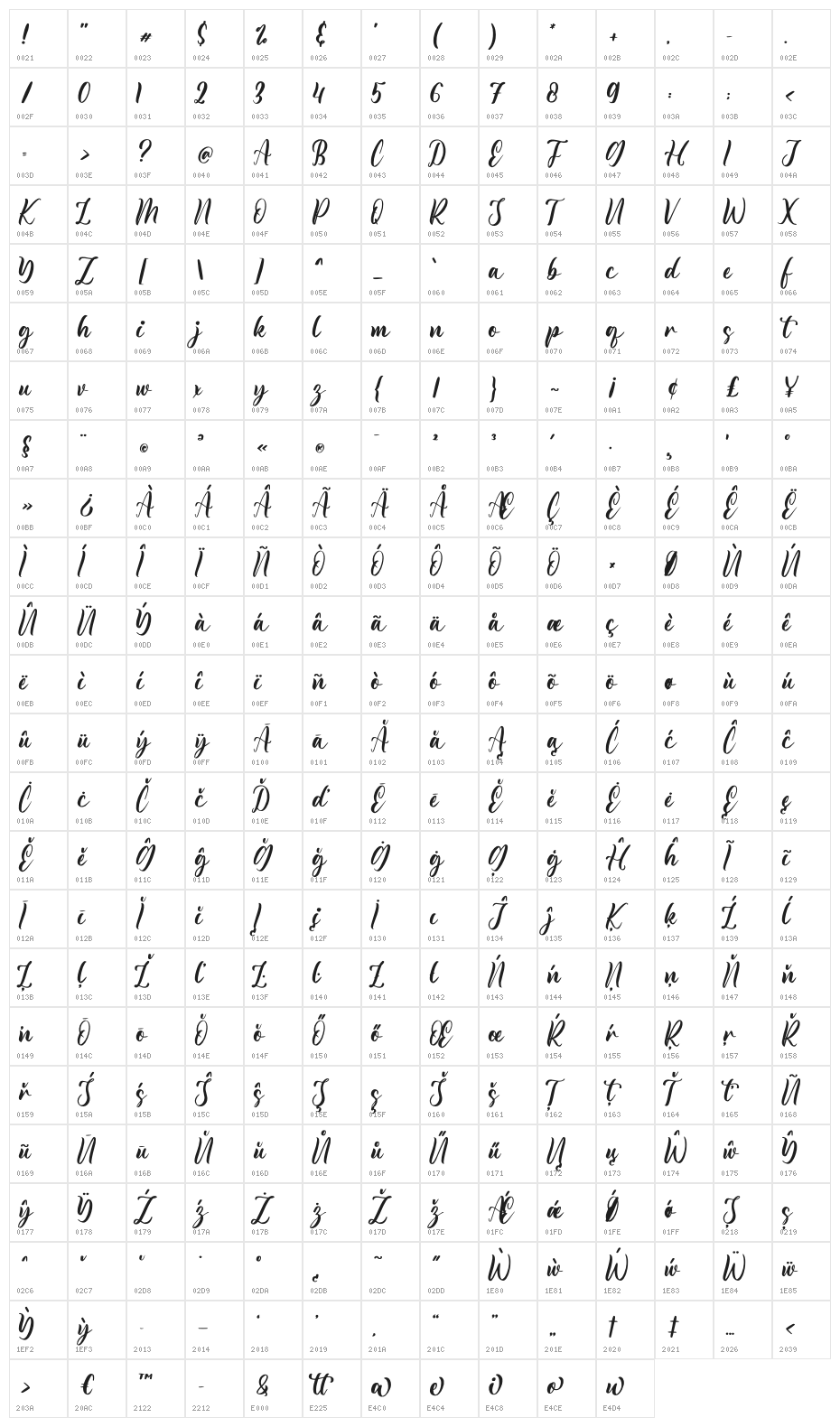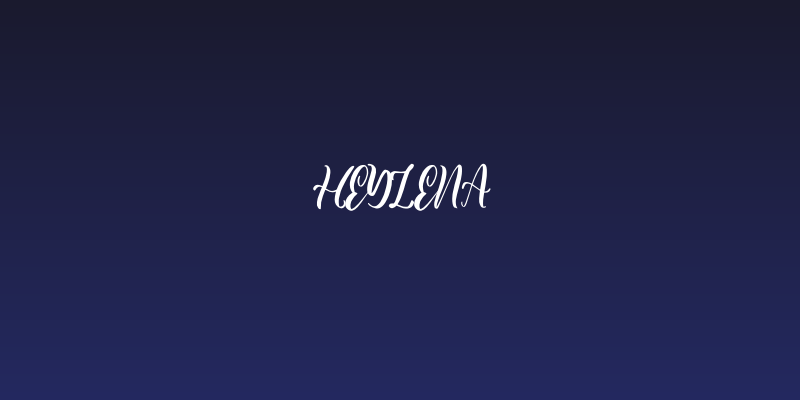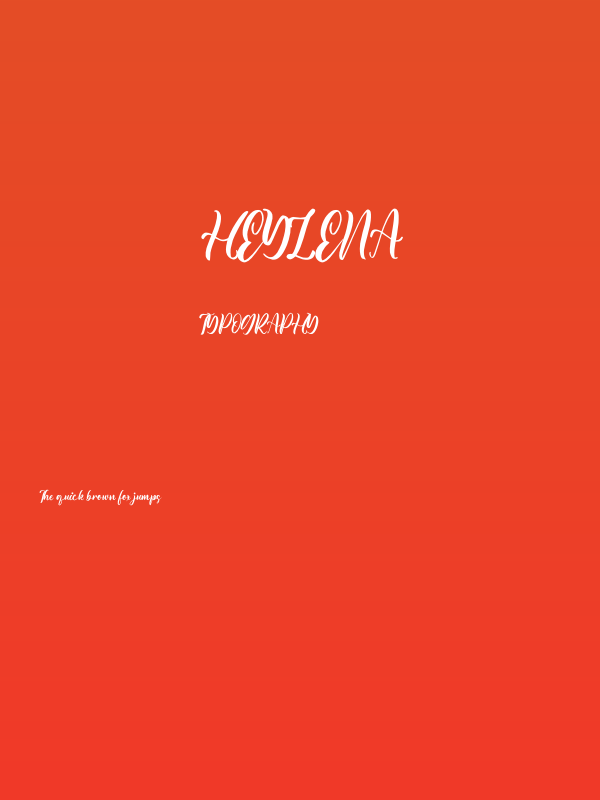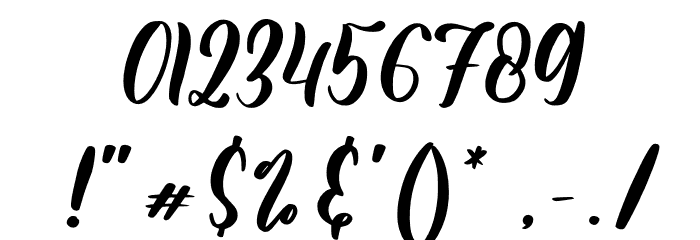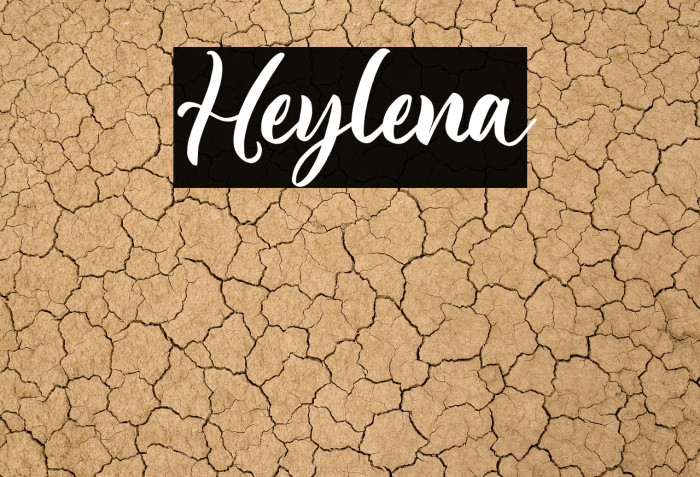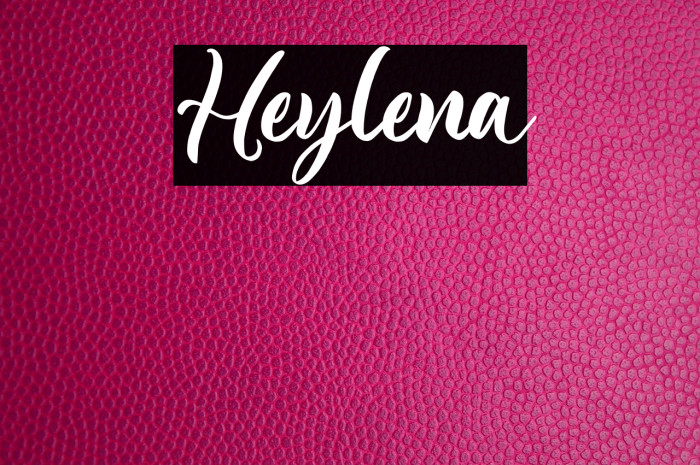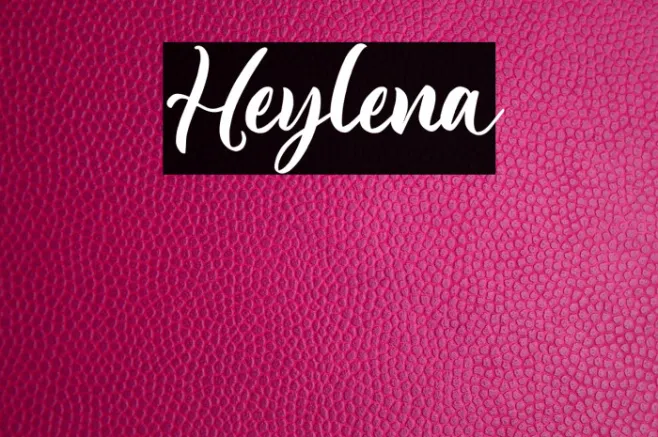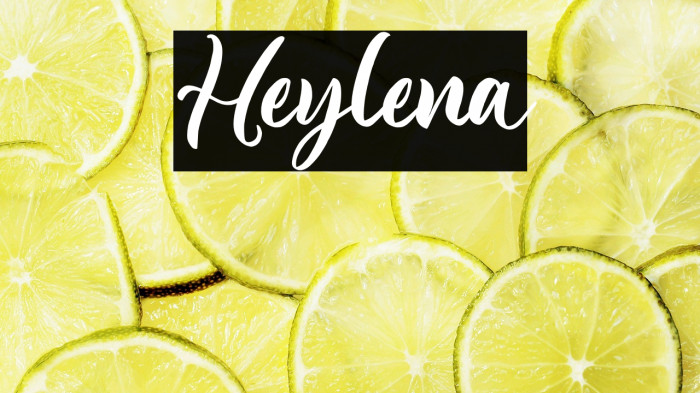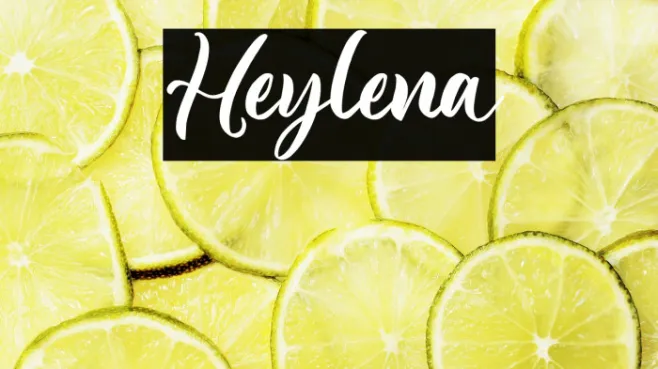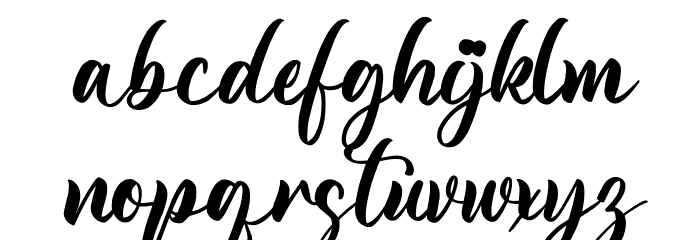
Heylena Font
Heylena Description
This font exudes a lively and elegant script style, characterized by its flowing, cursive letters that mimic the fluidity of handwritten calligraphy. The uppercase letters are bold and sweeping, with exaggerated loops and flourishes that add a sense of drama and sophistication. The lowercase letters maintain a consistent rhythm, with gentle curves and a slightly slanted orientation that enhances readability. Numbers and special characters are designed to complement the overall aesthetic, maintaining the same graceful and fluid style. This font is perfect for projects that require a touch of elegance and personal flair.